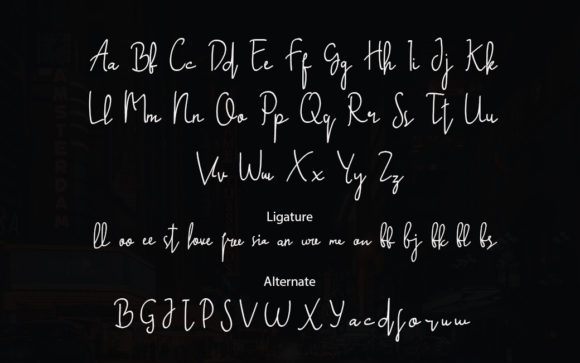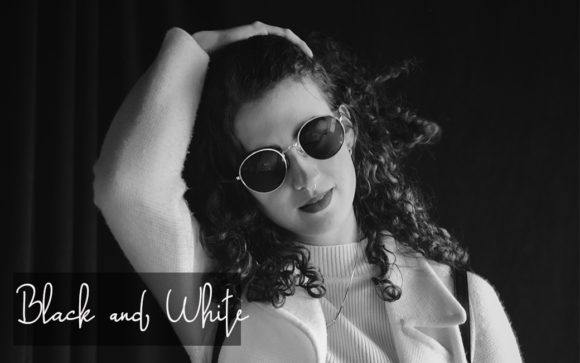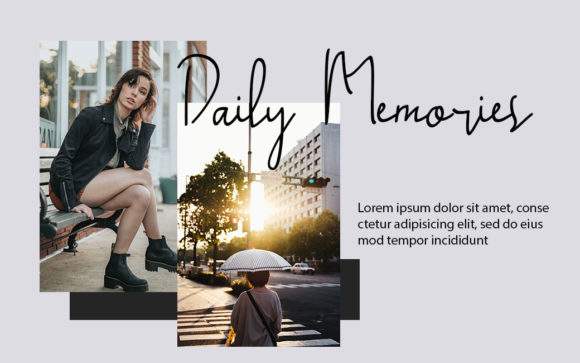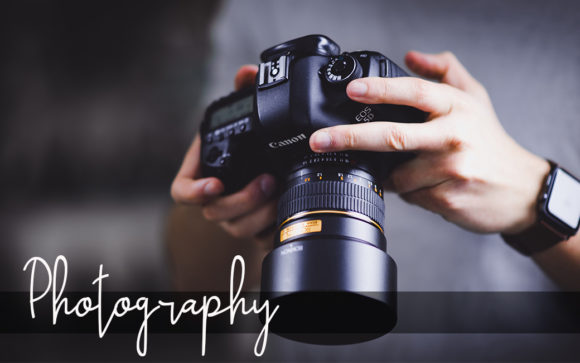
Assault Script Font: Unleash Your Creativity with its Effortlessly Cool Charm
Are you tired of using the same old fonts in your designs? Look no further than the Assault Script Font, a stunning and bold handwritten font that’s bursting with authenticity. With its effortlessly cool charm, Assault is the perfect addition to any design project that needs a touch of personality and style.
What is Assault Script Font?
Assault Script Font is a unique and eye-catching font that’s designed to make a statement. Its bold and fluid strokes give it a dynamic feel that’s perfect for headlines, titles, and other design elements that need to stand out. Whether you’re working on a logo, a poster, or a website, Assault is sure to grab attention and leave a lasting impression.
Key Features of Assault Script Font
- Bold and Fluid Strokes: Assault’s bold and fluid strokes give it a dynamic feel that’s perfect for making a statement.
- Effortlessly Cool Charm: Assault’s unique style has an effortlessly cool charm that’s sure to appeal to designers and crafters.
- Authentic and Genuine: Assault’s handwritten style gives it an authentic and genuine feel that’s perfect for designs that need a personal touch.
- Highly Versatile: Assault is a highly versatile font that can be used in a wide range of design projects, from logos and posters to websites and social media graphics.
Why Use Assault Script Font?
There are many reasons why designers and crafters love Assault Script Font. Here are just a few:
- Add Personality to Your Designs: Assault’s unique style allows you to add personality and style to your designs, setting them apart from the crowd.
- Perfect for Headlines and Titles: Assault’s bold and fluid strokes make it perfect for headlines and titles that need to stand out.
- Easy to Read: Despite its bold style, Assault is easy to read, making it perfect for designs that need to communicate a message.
How to Use Assault Script Font
Using Assault Script Font is easy. Here are a few tips to get you started:
- Use it for Headlines and Titles: Assault is perfect for headlines and titles that need to stand out.
- Experiment with Different Colors: Assault looks great in a wide range of colors, so don’t be afraid to experiment and find the perfect hue for your design.
- Pair it with Other Fonts: Assault pairs well with a wide range of fonts, so feel free to get creative and find the perfect combination for your design.
Assault Script Font is a stunning and bold handwritten font that’s bursting with authenticity. With its effortlessly cool charm and highly versatile style, Assault is the perfect addition to any design project that needs a touch of personality and style. Whether you’re a designer, crafter, or DIY enthusiast, Assault is sure to inspire your creativity and take your designs to the next level.